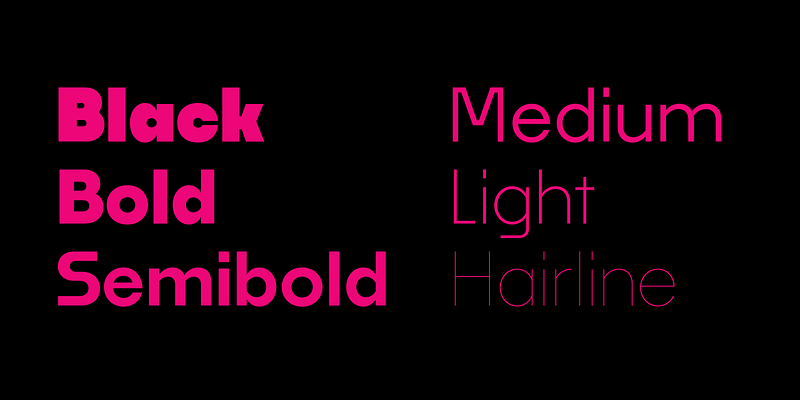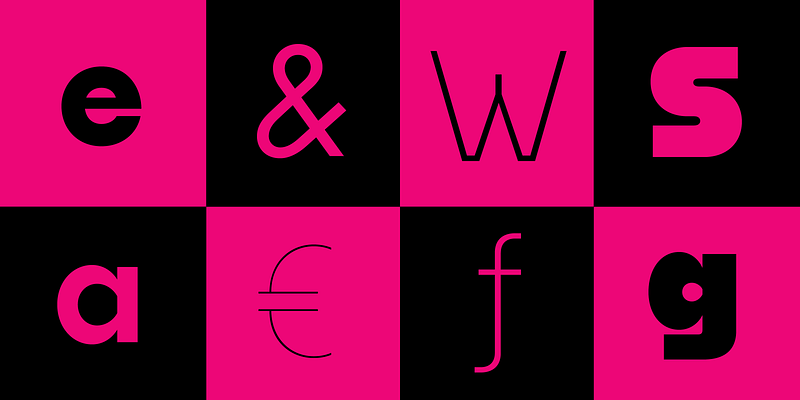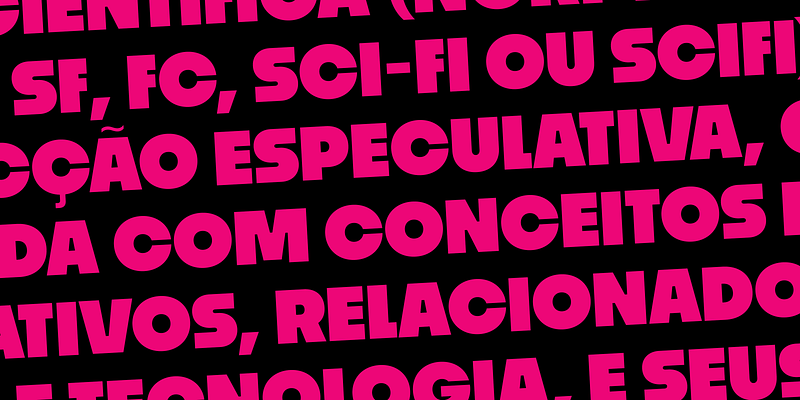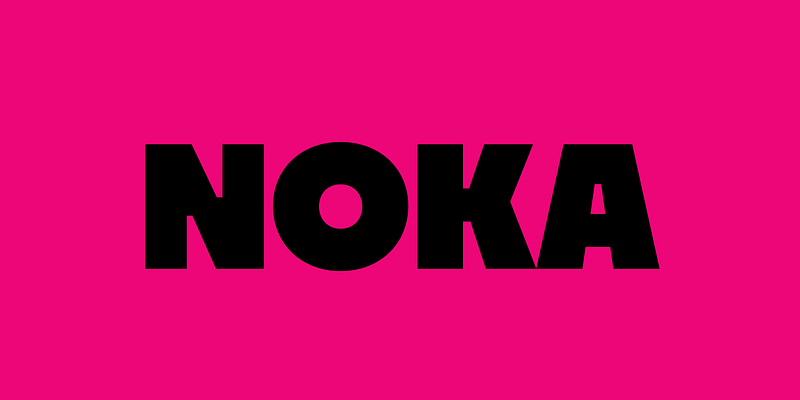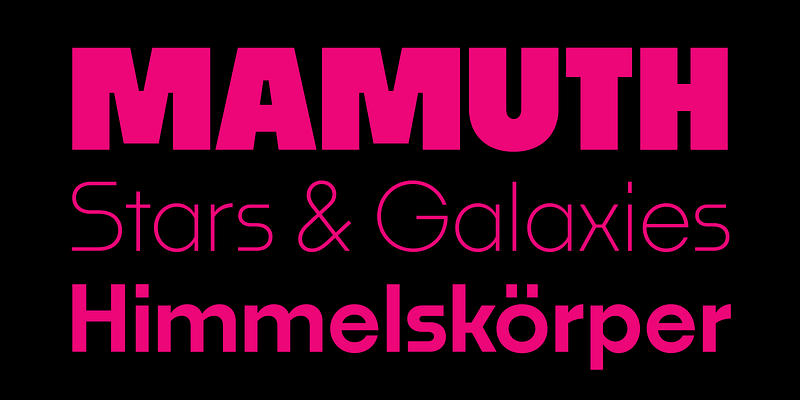
Noka is a powerful display geometric sanserif with a lot of personality. Its clean structure refers to a more digital and technological atmosphere. Letters F T L are narrower than usual to create a distinct feeling. Diagonal strokes of letters V v W w A are parallel.